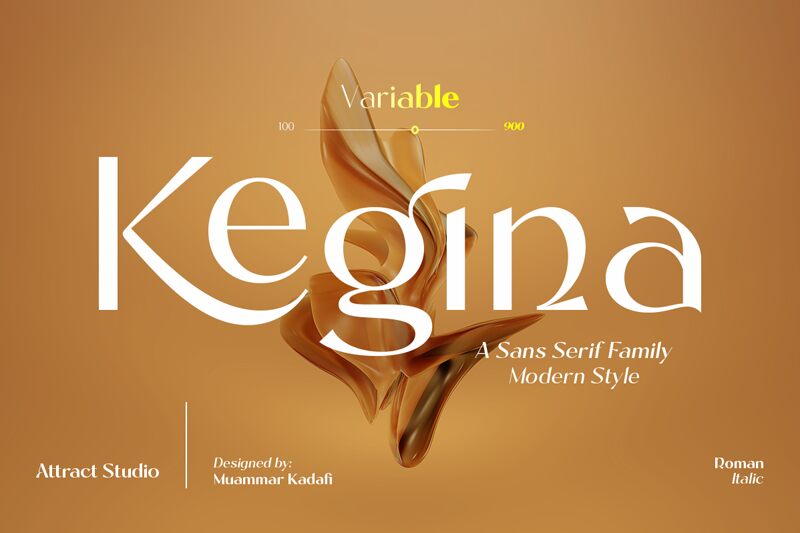
Kegina Thin, a font from the Kegina font family by Attract Studio, is characterized by an elegant serif design that is light in weight. It has attractive curves and subtle elements, making it appropriate for projects requiring some elegance. The beautiful style of this typeface improves readability without compromising on visual appeal.
This lightweight of Kegina Thin is best for book covers, wedding invitations and premium brandings. When designers want to download a free modern looking font with classic appeal. It appears graceful in both print and digital media thereby proving useful in different design situations.
Kegina Thin
Attract Studio
Muammar Kadafi